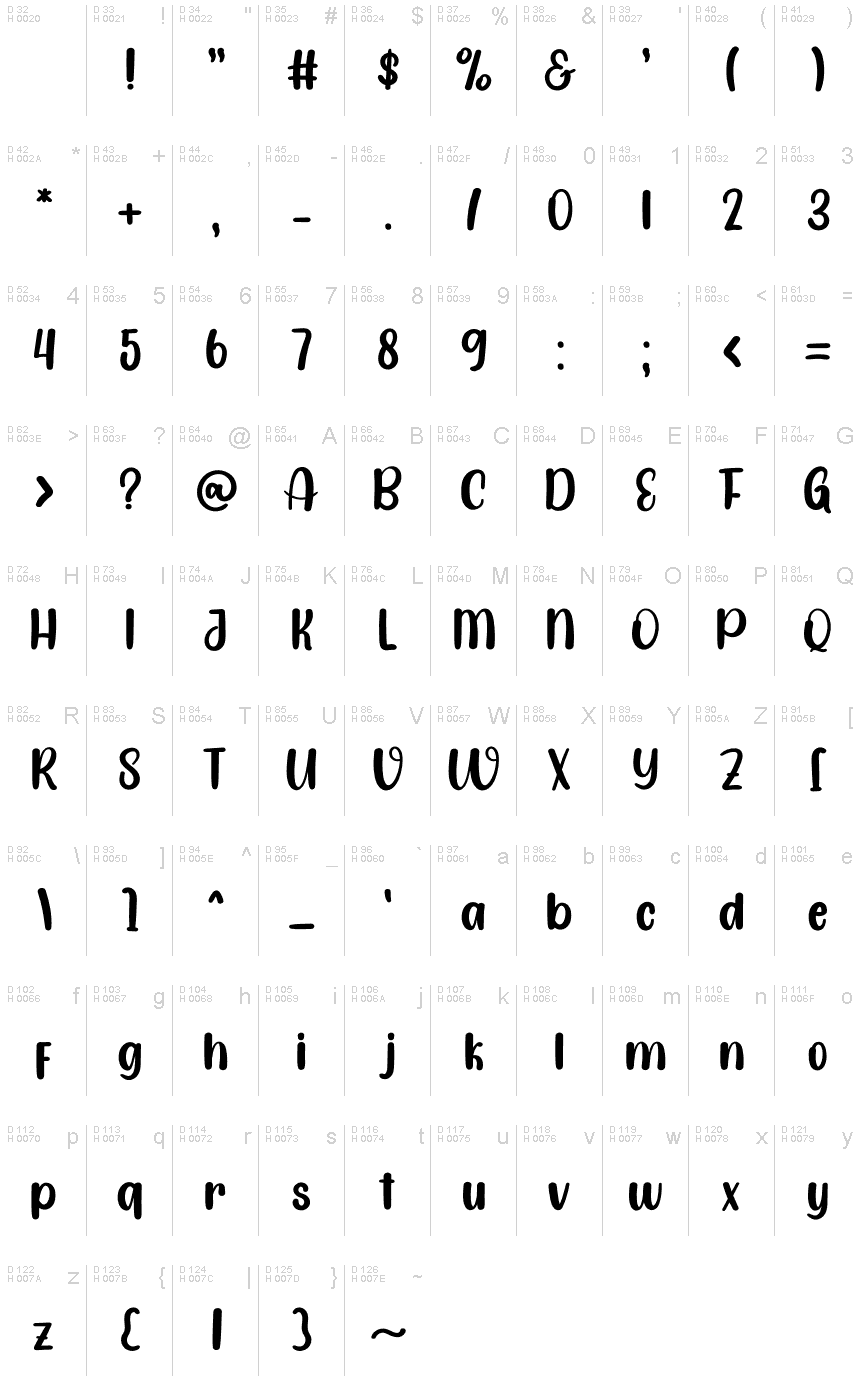
Butter
Butter, a delightful creation by PiPi Creative, is a bold and charming handwritten font that brings a touch of whimsy to any project.
With its playful strokes and endearing curves, Butter is perfect for children's book illustrations, greeting cards, and invitations. Its cute and lively appearance adds warmth to party decorations, logo designs for toy stores or pet boutiques. Whether you're designing a logo for a bakery or creating personalized stationery, Butter's boldness will make your text stand out with its irresistible charm.
Let Butter make your designs come alive with its adorable handwritten style!